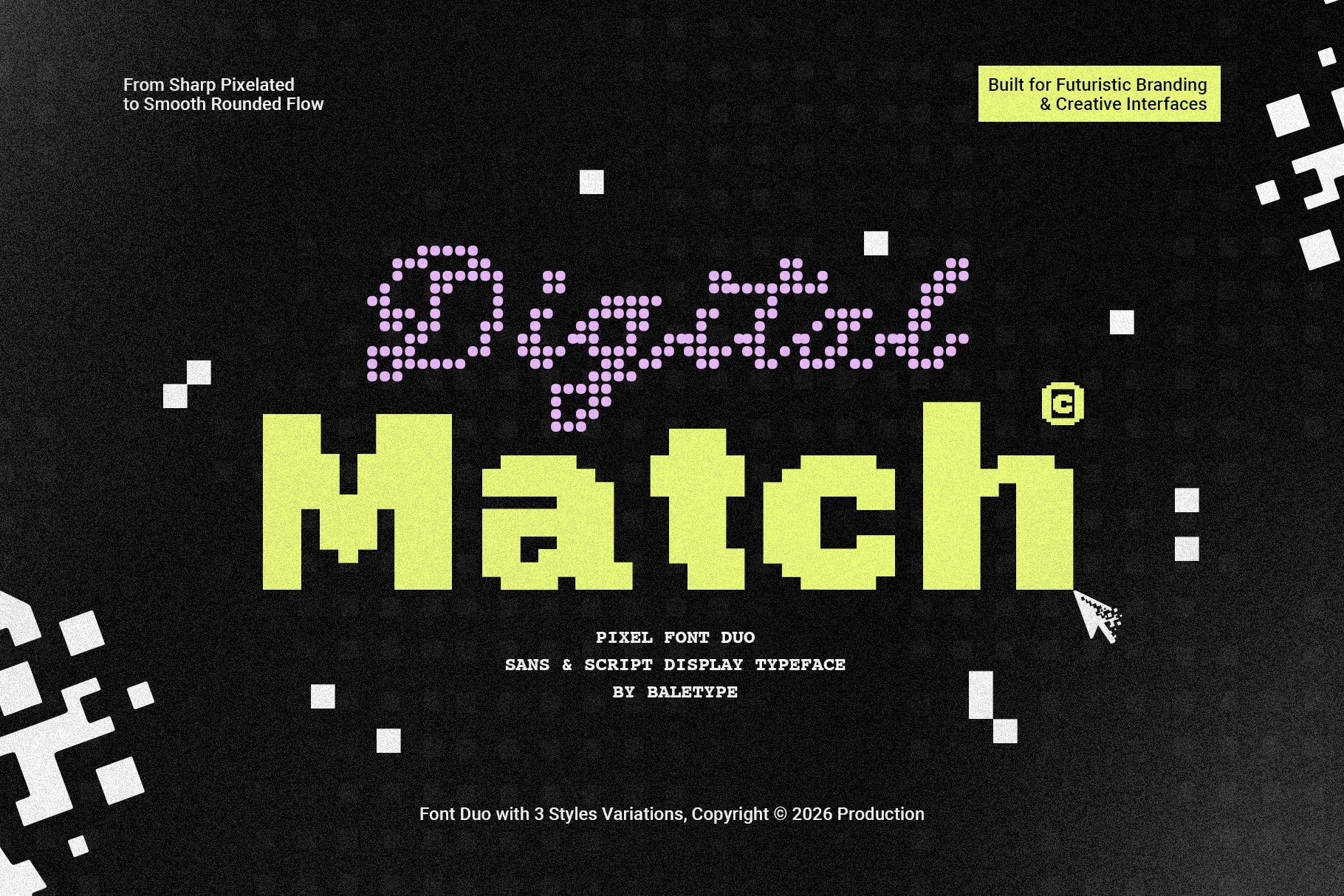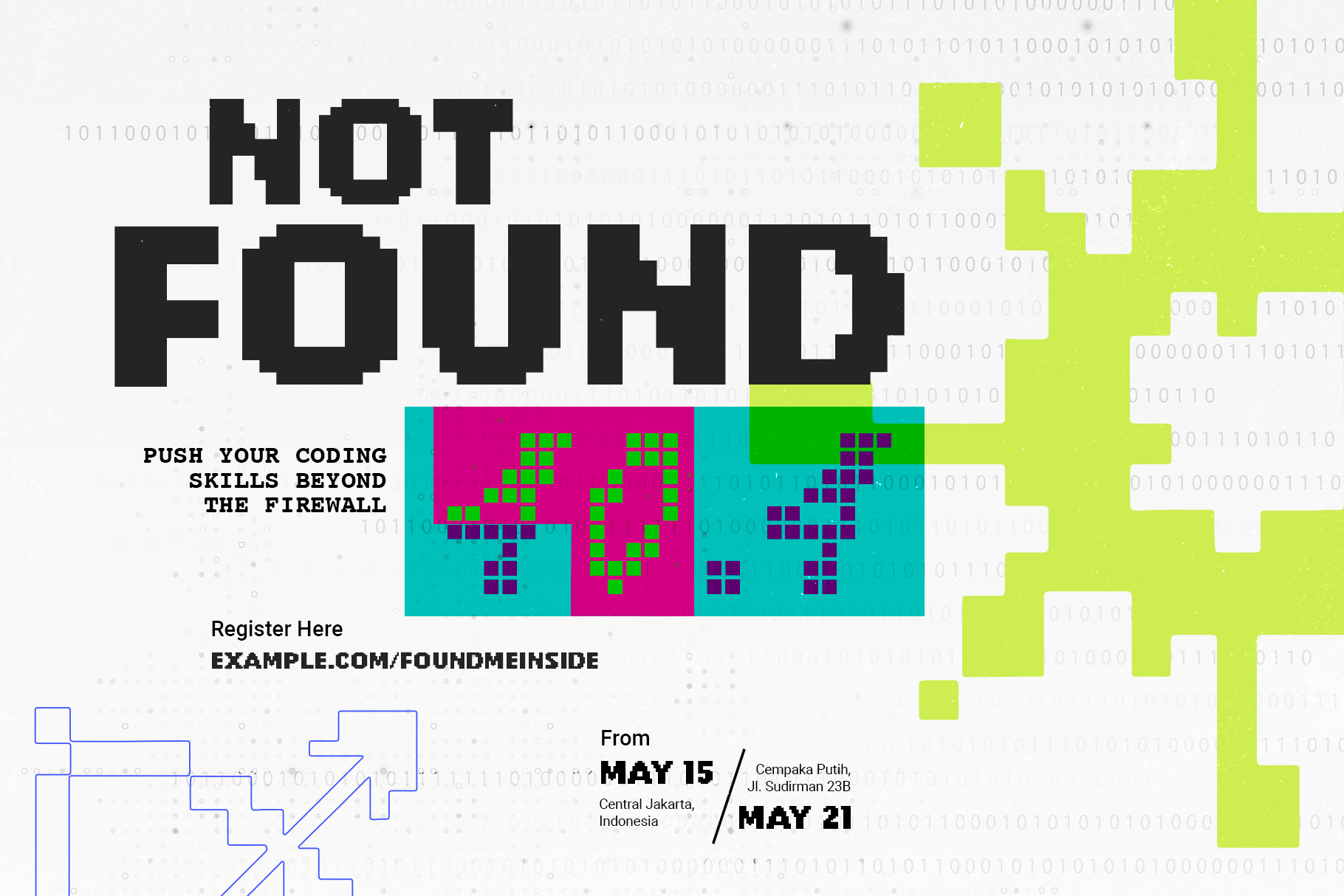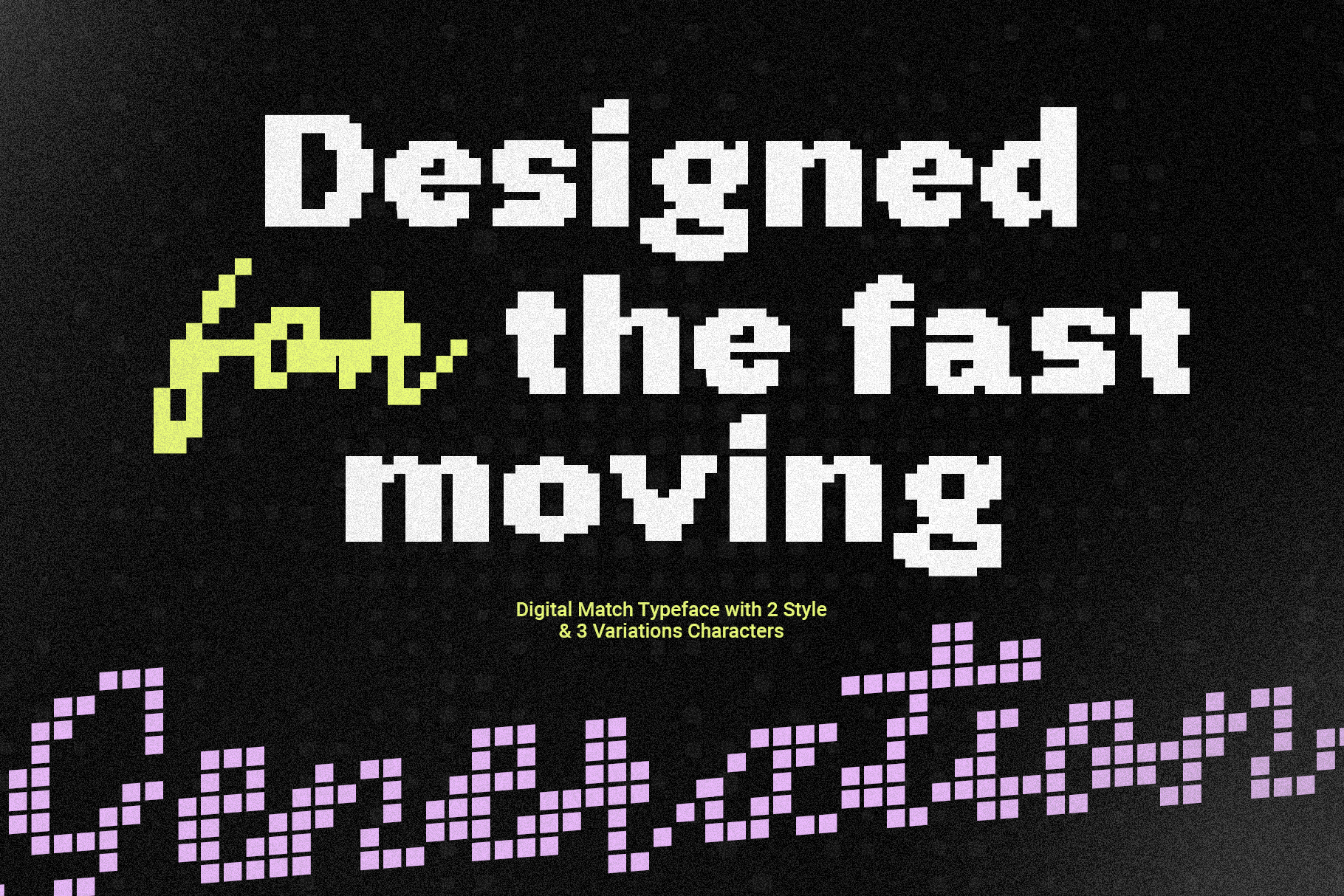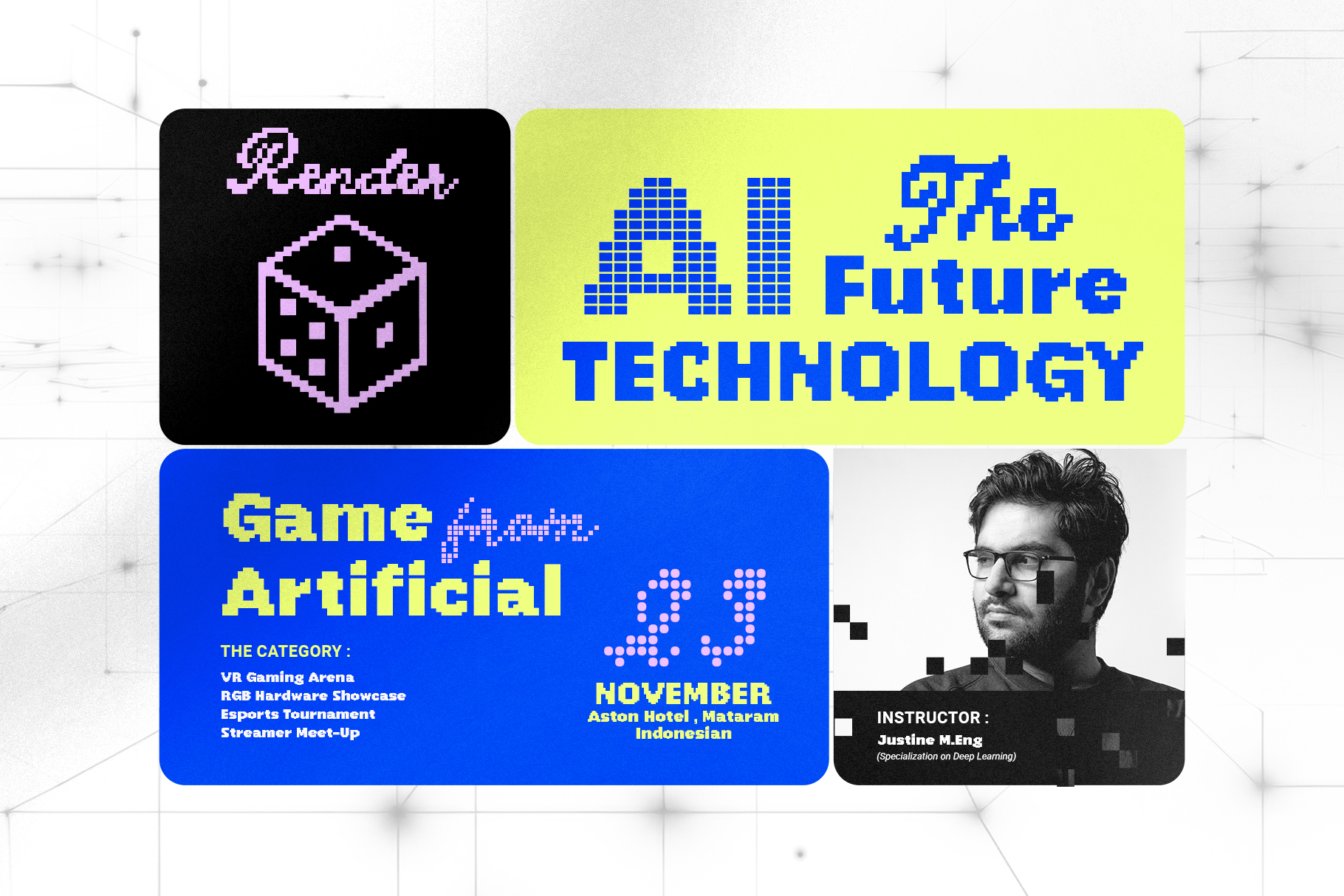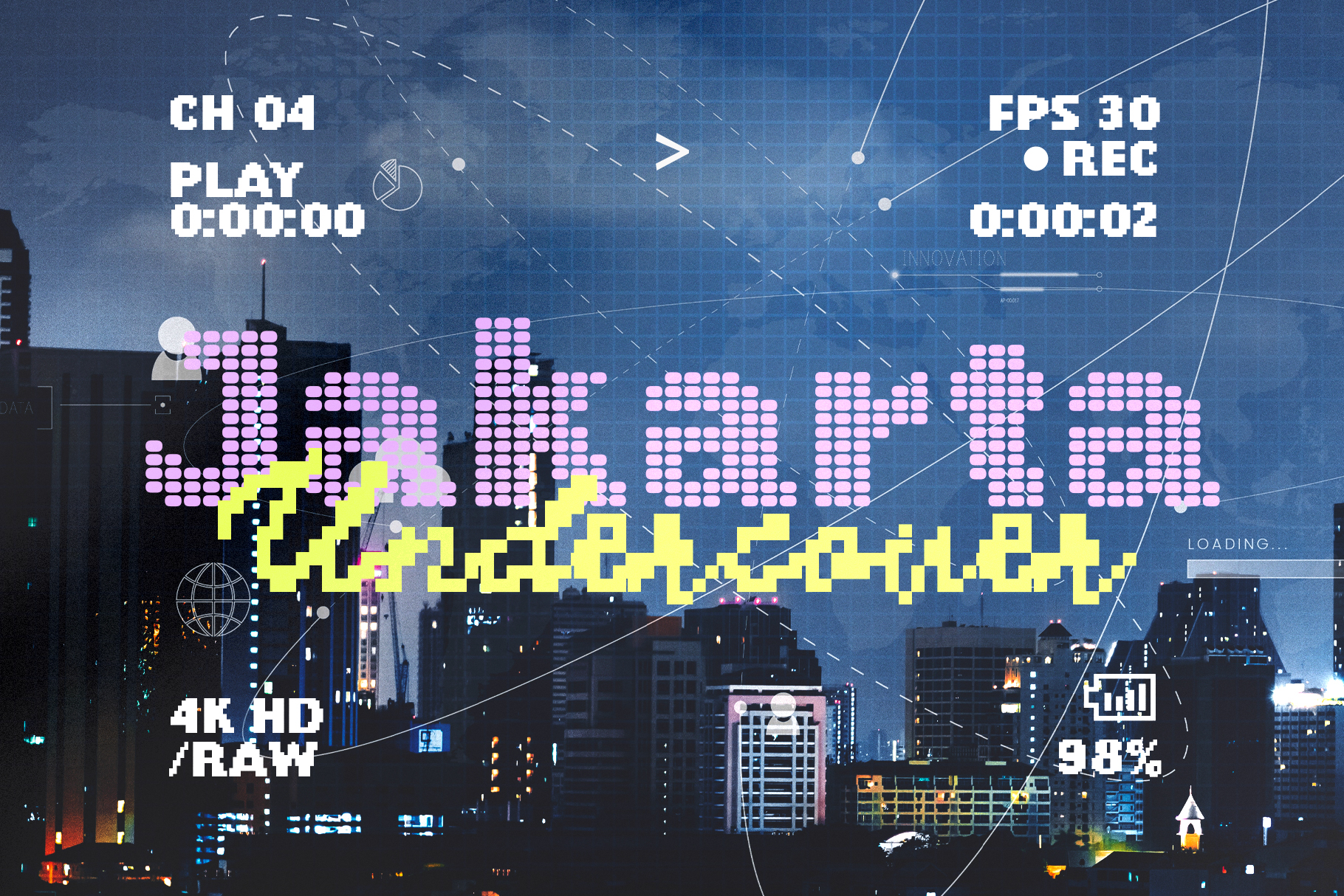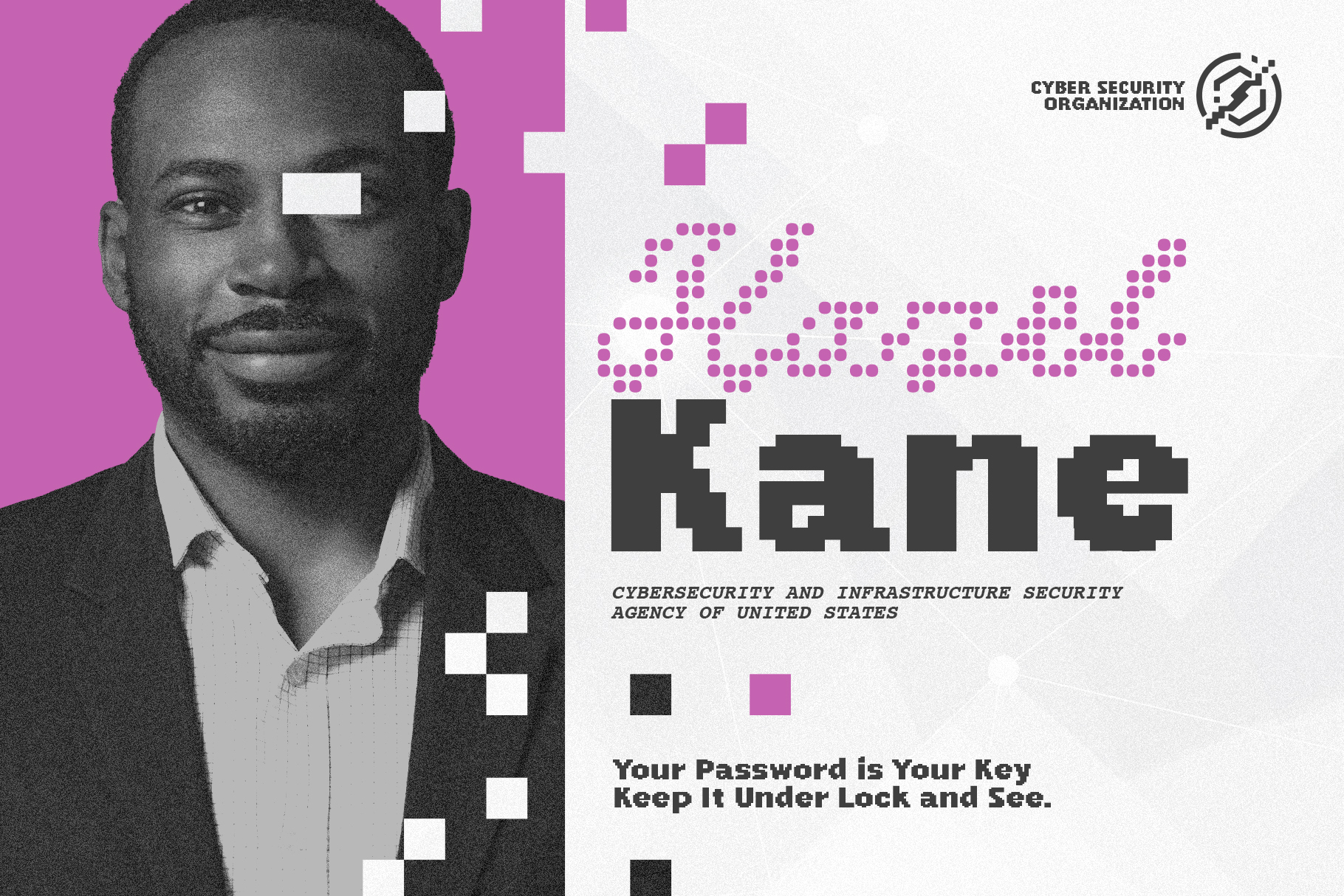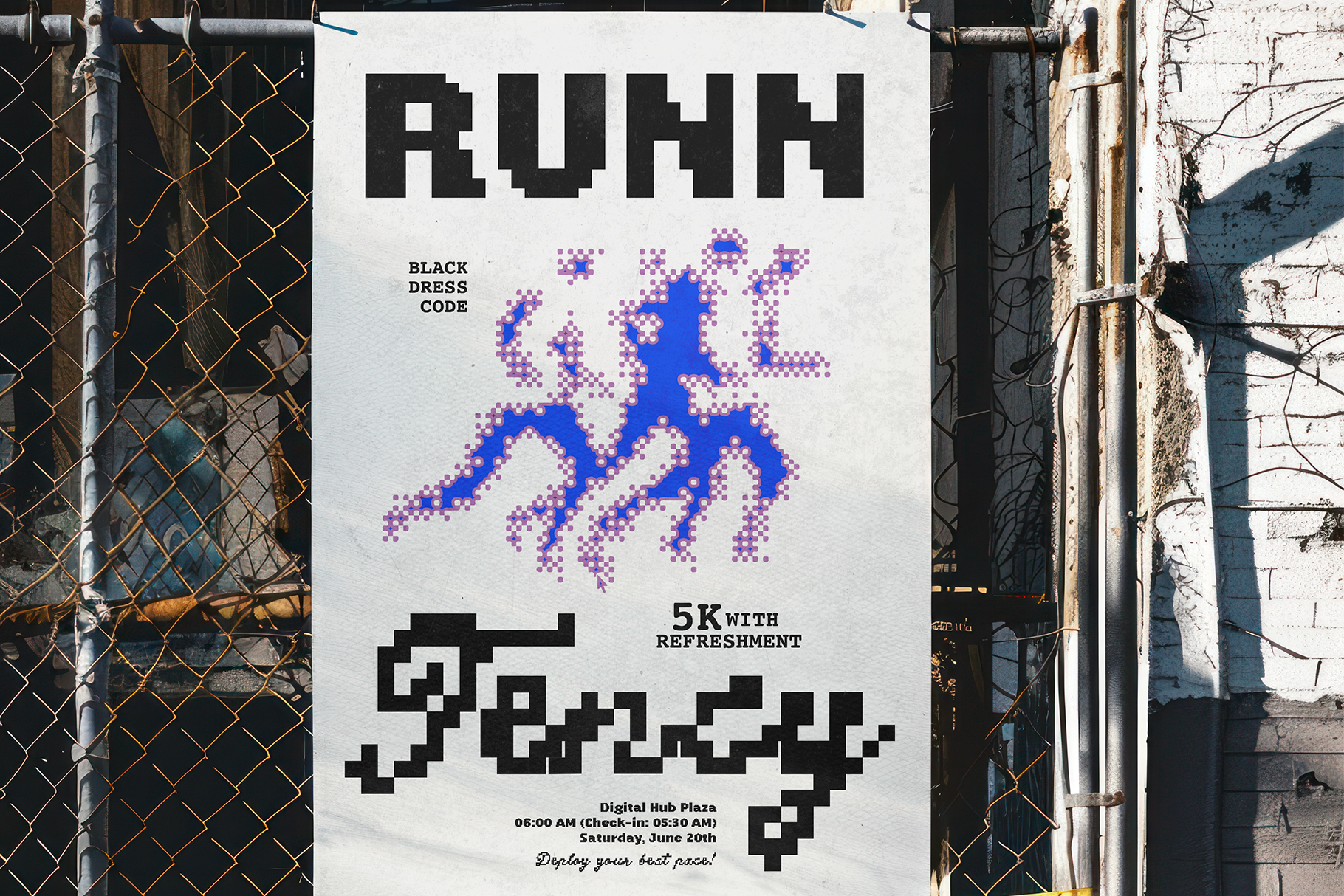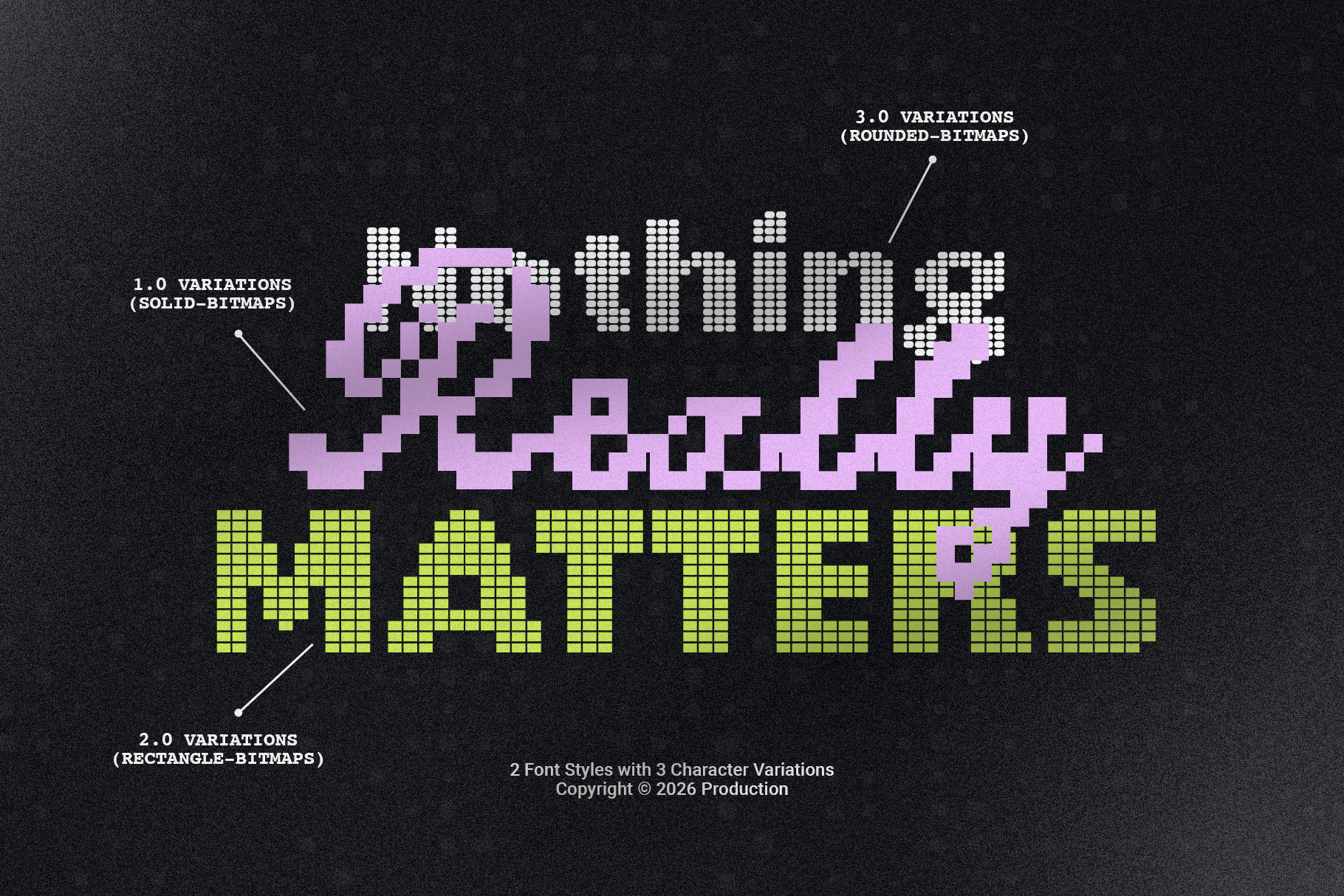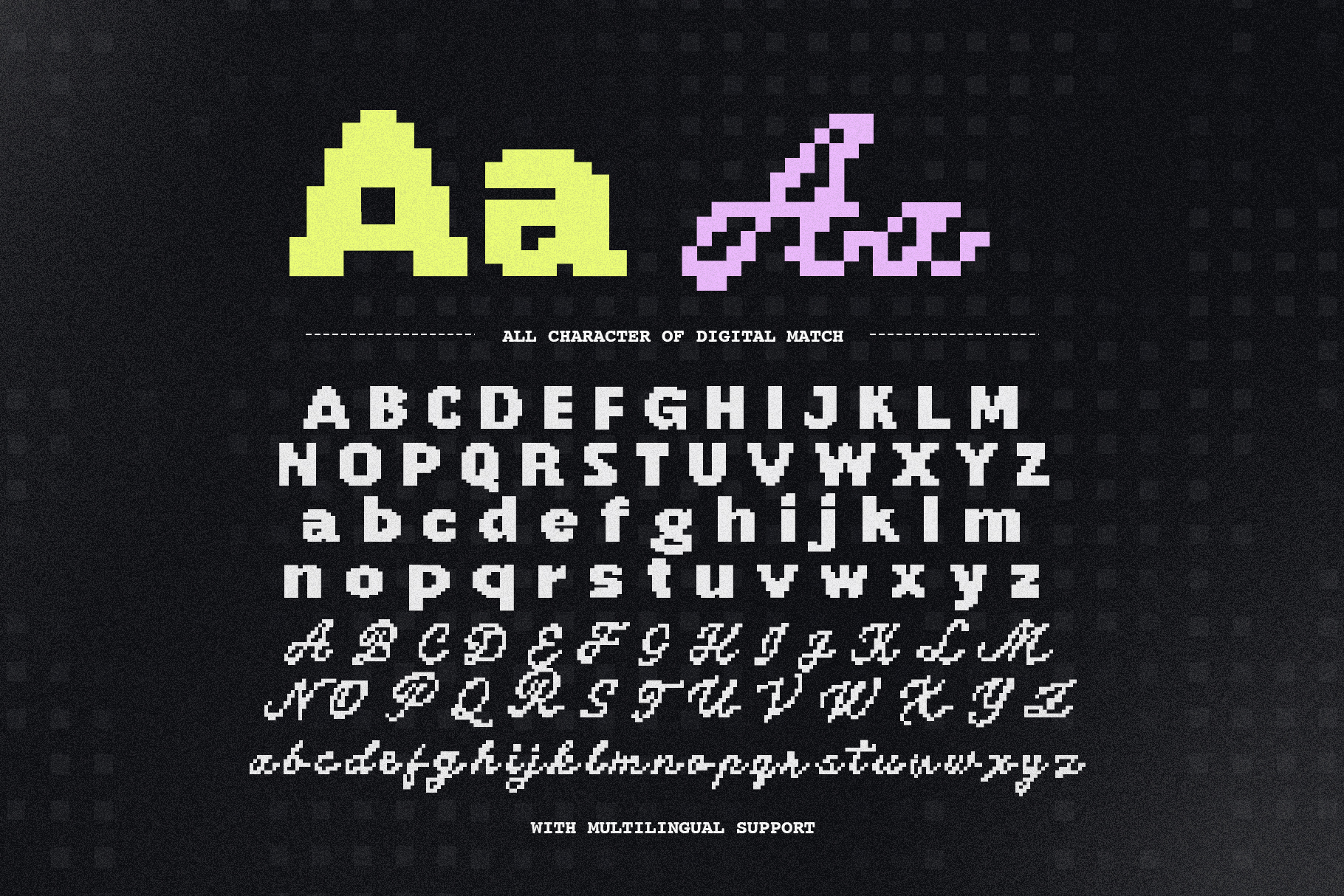
Digital Match is a modern pixelated font duo. Including script and sans style that each other have three variants that you can choose for your project. You can use this font for any purposes such as logotype, poster, tech event, game, or any project that need to looks futuristic. This font duo also support multi language.
Digital Match – Pixel Font Duo
Digital Match is a modern pixelated font duo. Including script and sans style that each other have three variants that you can choose for your project.